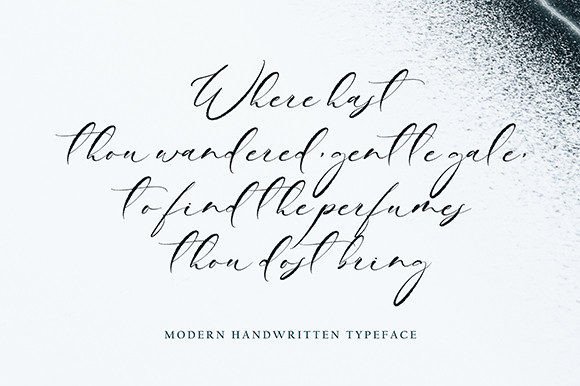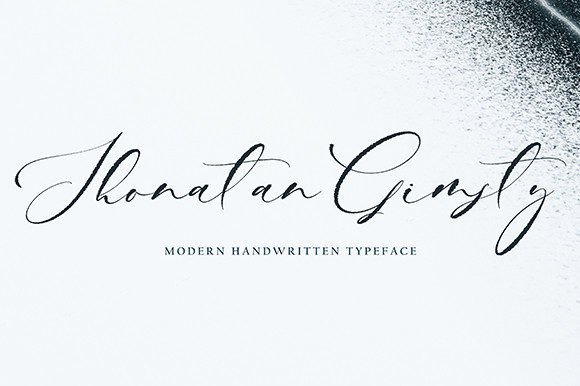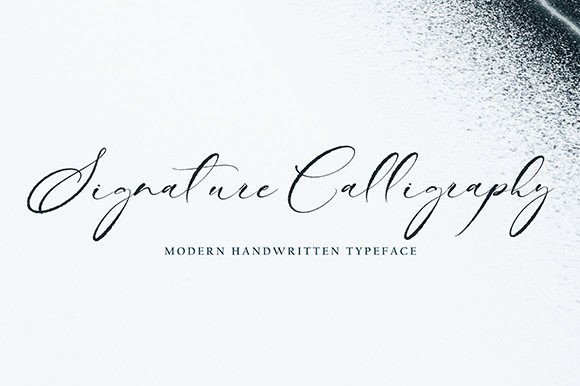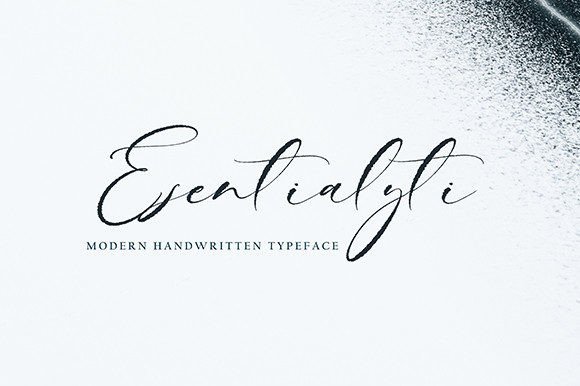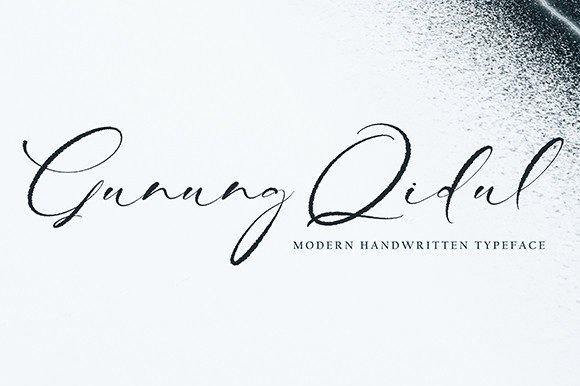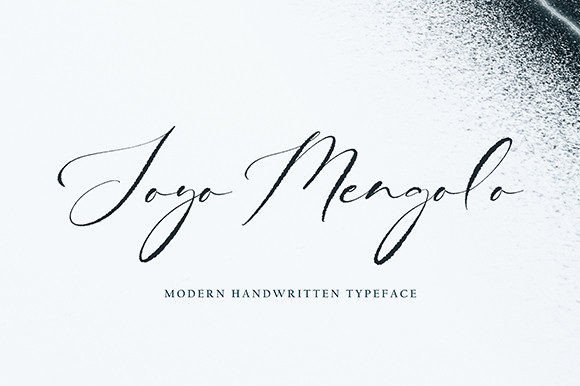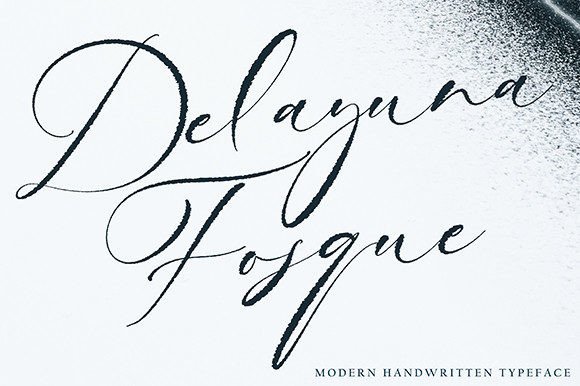
Introducing Delayuna Fosque Font: Elevate Your Designs with Elegance
Are you on the hunt for a font that exudes sophistication, elegance, and a touch of modern flair? Look no further than Delayuna Fosque, a stunning handwritten font that’s sure to capture your heart. With its perfect blend of classic calligraphic influences and contemporary style, Delayuna Fosque is the ultimate addition to your design arsenal.
The Art of Handwritten Fonts
Handwritten fonts have a unique way of adding a personal touch to any design project. They bring a sense of warmth, humanity, and approachability that’s hard to replicate with generic fonts. Delayuna Fosque takes this concept to the next level with its exquisite, handcrafted design that’s both refined and stylish.
What Makes Delayuna Fosque Special?
So, what sets Delayuna Fosque apart from other fonts? Here are just a few reasons why this font is sure to become your new favorite:
- Classy Calligraphic Influences: Delayuna Fosque boasts beautiful calligraphic flourishes that add a touch of sophistication to any design.
- Contemporary and Fresh: Despite its classic influences, Delayuna Fosque feels modern and fresh, making it perfect for designers who want to stay on-trend.
- Versatile: Whether you’re working on a branding project, wedding invitation, or social media graphic, Delayuna Fosque adapts seamlessly to any design style.
- Elegant and Refined: This font exudes elegance and refinement, making it ideal for high-end designs that require a touch of luxury.
Use Cases for Delayuna Fosque Font
Delayuna Fosque is an incredibly versatile font that can be used in a wide range of design projects, including:
- Branding and Logos: Create a lasting impression with Delayuna Fosque’s elegant, sophisticated design.
- Wedding and Event Invitations: Add a touch of romance and whimsy to your wedding or event invitations with this beautiful font.
- Social Media Graphics: Elevate your social media presence with Delayuna Fosque’s modern, stylish design.
- Packaging and Product Design: Stand out on store shelves with Delayuna Fosque’s unique, eye-catching design.
Tips for Using Delayuna Fosque Effectively
To get the most out of Delayuna Fosque, here are a few tips to keep in mind:
- Pair with Neutral Fonts: Balance Delayuna Fosque with neutral fonts to create visual interest and hierarchy.
- Experiment with Sizes and Colors: Play around with different sizes and colors to add depth and dimension to your design.
- Use for Headings and Titles: Delayuna Fosque is perfect for headings and titles, where its elegant design can shine.
In conclusion, Delayuna Fosque is a truly exceptional font that’s sure to become a staple in your design collection. With its perfect blend of classic calligraphic influences and modern style, this exquisite handwritten font is ideal for designers and crafters who want to elevate their projects to the highest levels. So why wait? Fall in love with Delayuna Fosque and bring your designs to life with elegance and sophistication.